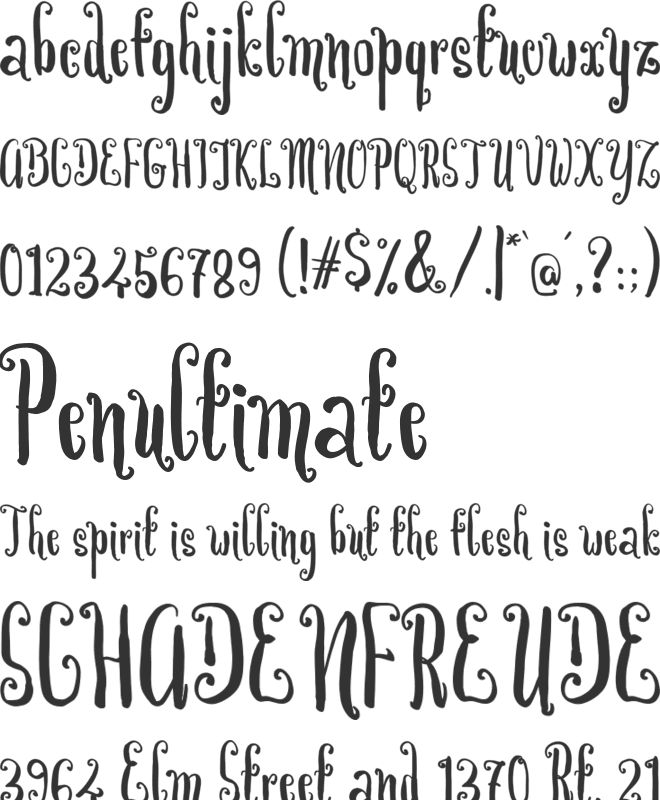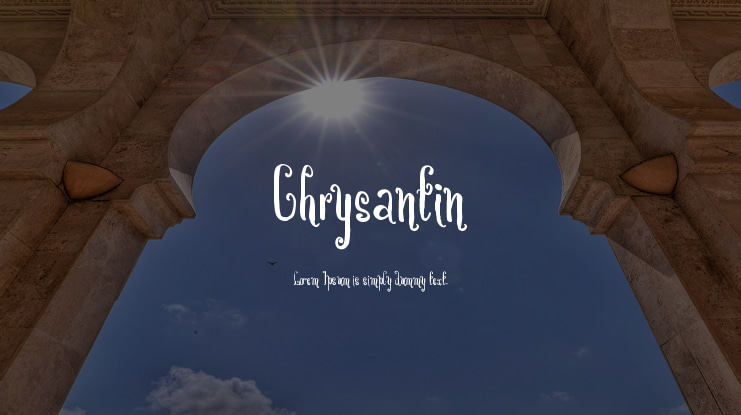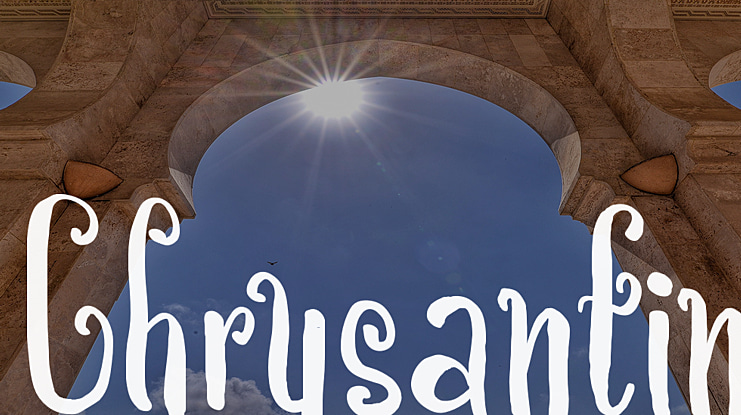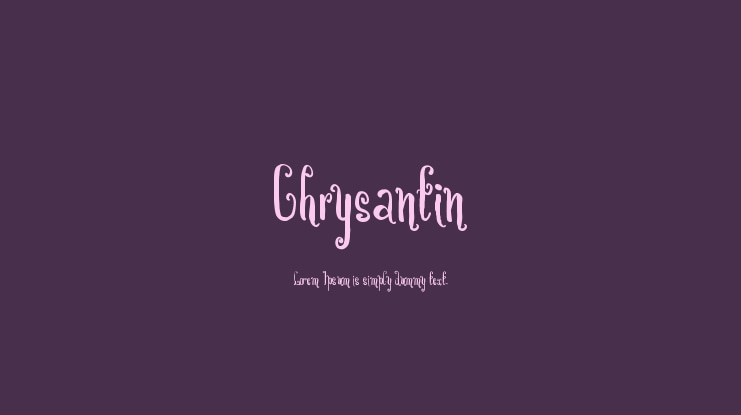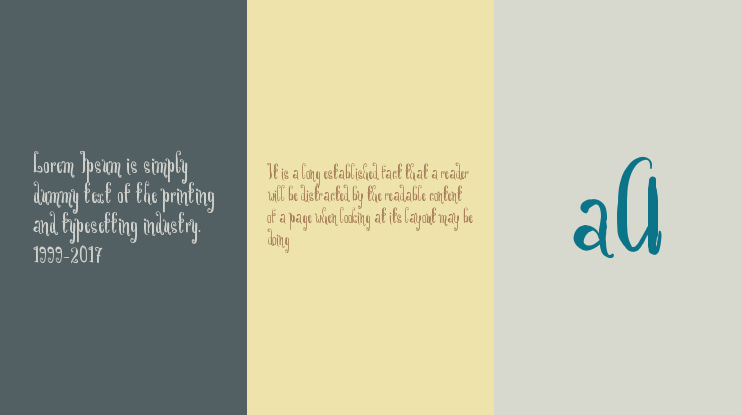
Chrysantin Font
Darwinoo
Present my new cute and beautiful brush handwritten font. It will nice to make your design cute and playful style.
Contain 275 glyphs and supported to basic Latin character and eastern Europe language.